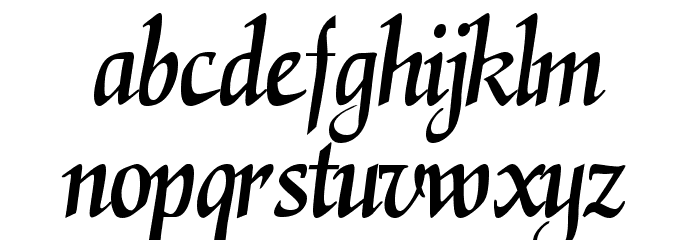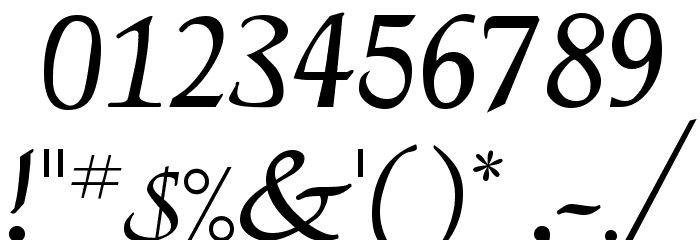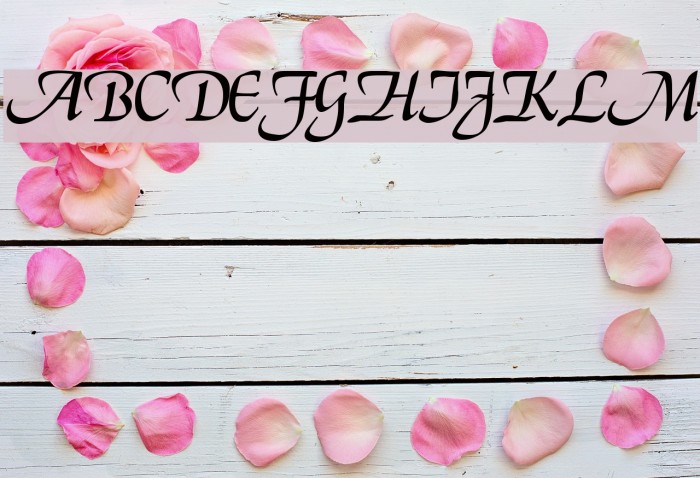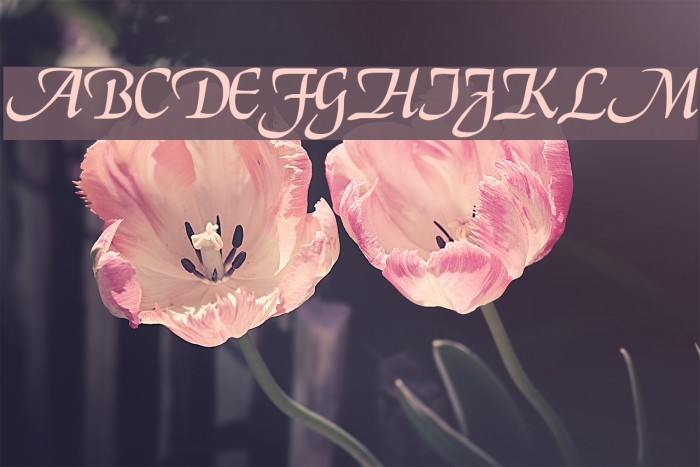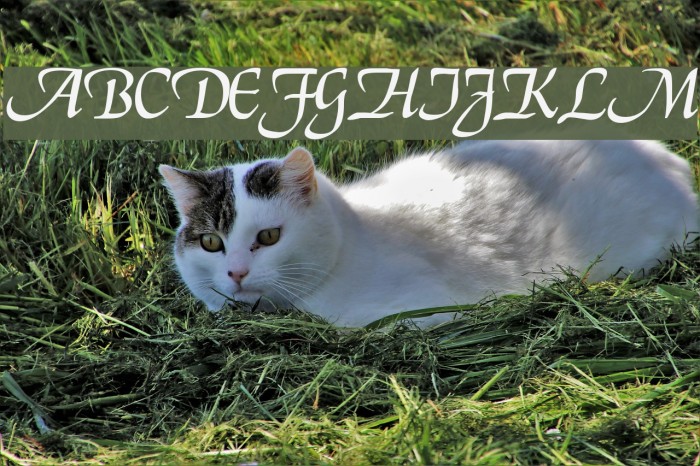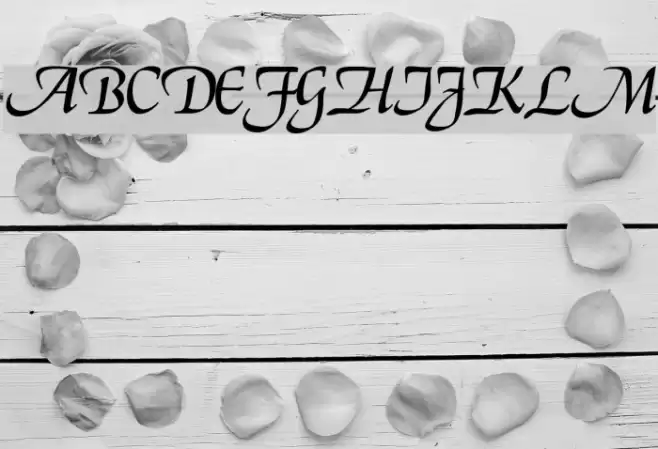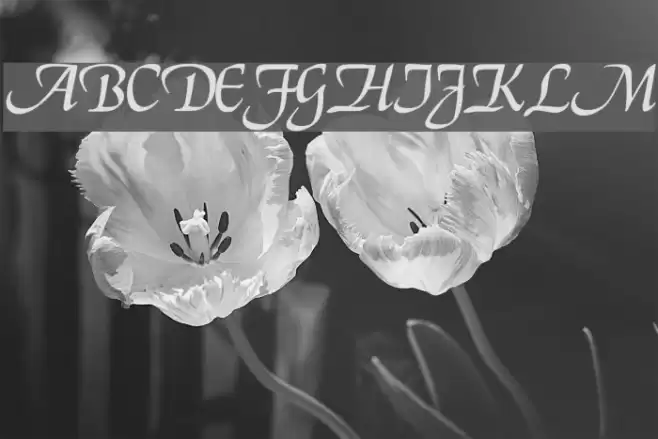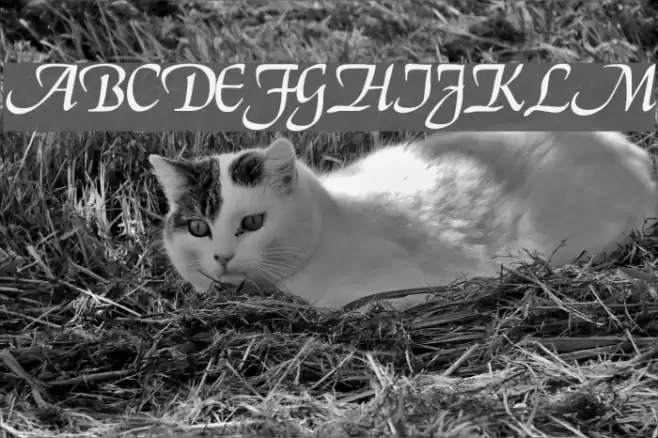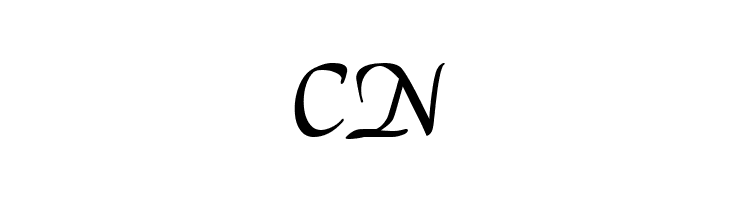
Deloise Font
This font exudes elegance and sophistication with its flowing, cursive style. The uppercase letters are characterized by their sweeping curves and graceful lines, giving a sense of movement and fluidity. The lowercase letters maintain a consistent style, with smooth connections between characters that enhance readability while preserving the decorative nature. The numerals are bold and slightly italicized, complementing the overall aesthetic. Special characters are designed with the same attention to detail, ensuring they fit seamlessly with the rest of the typeface. This font is ideal for projects that require a touch of class and refinement.
An elegant, cursive font with flowing lines and sophisticated style.
- Proposed Projects: Wedding invitations, luxury branding, elegant posters, and greeting cards.
- Overall Style: Classic
- Use Case: Logos, Invitations, Decorative text